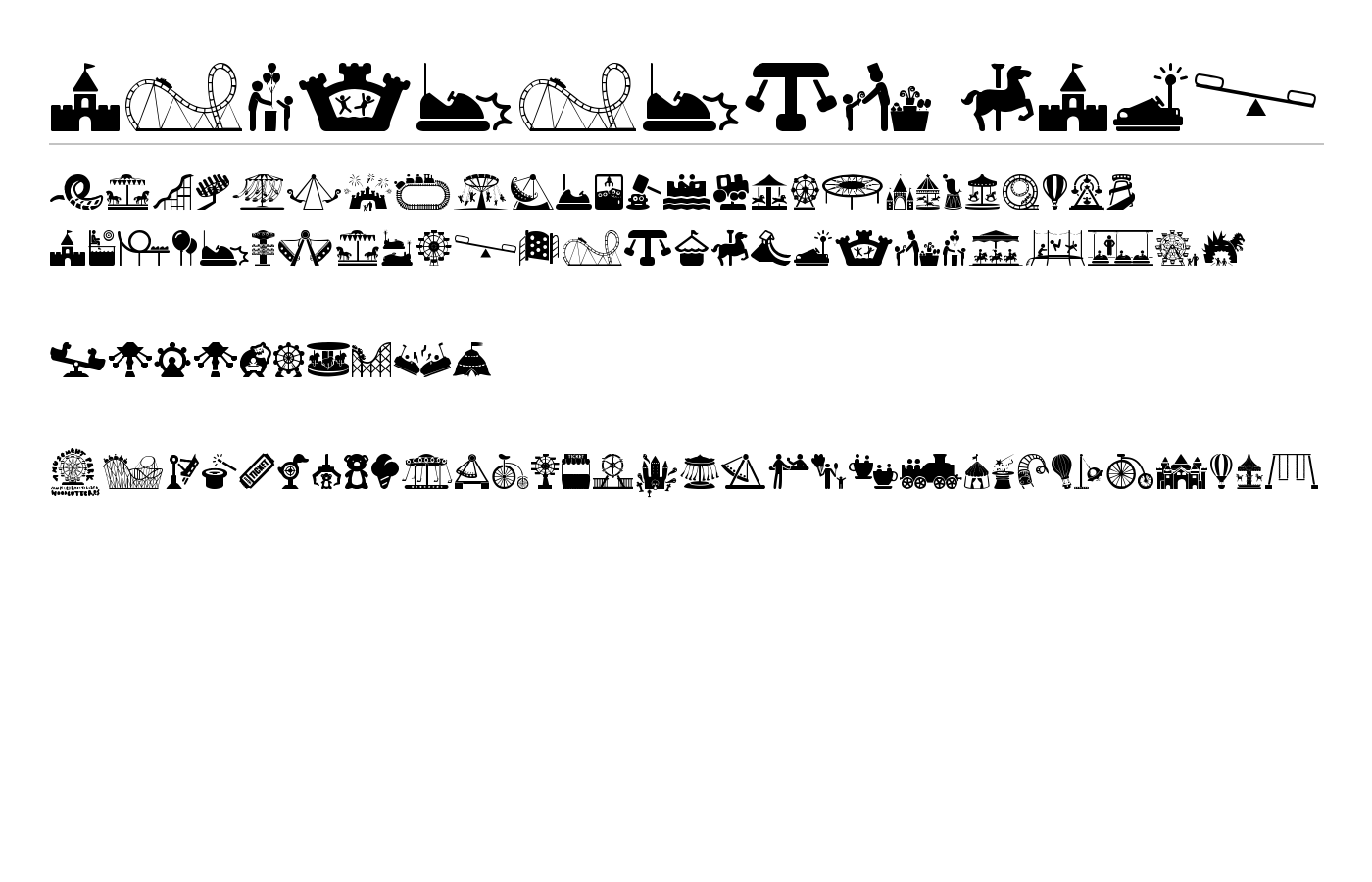
Amusement Park Font is a playful and whimsical dingbat-style typeface featuring detailed black-and-white icons of classic amusement park attractions and activities. With its bold, solid shapes and fun imagery, this font brings a lively, nostalgic feel perfect for themed designs, children’s event promotions, party invitations, or any project needing a joyful and entertaining touch. Its unique pictorial style makes it ideal for creating decorative elements rather than traditional text.
amusement park Font
About amusement park Font